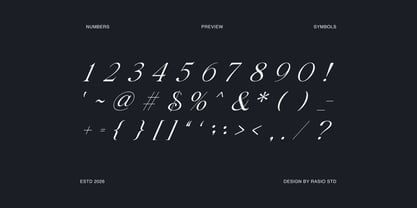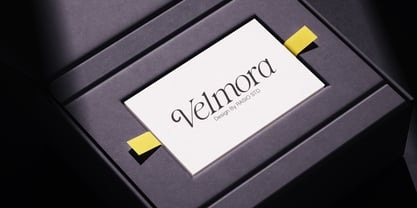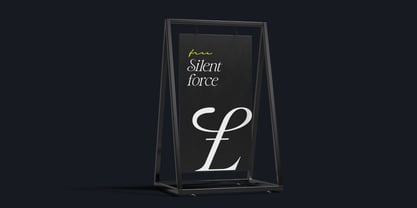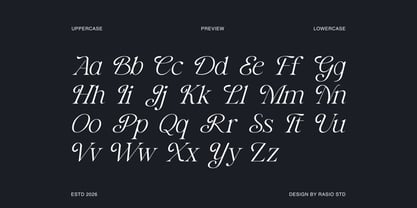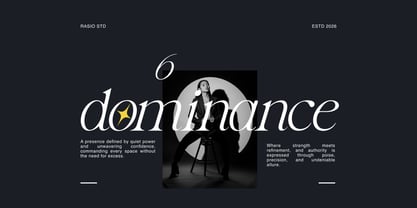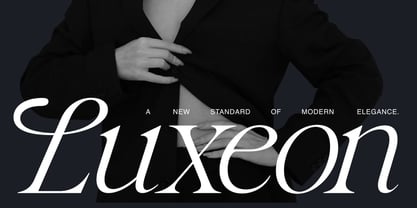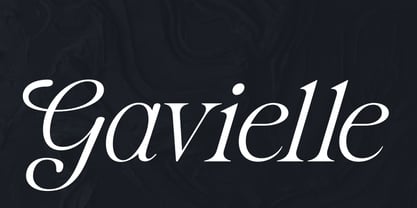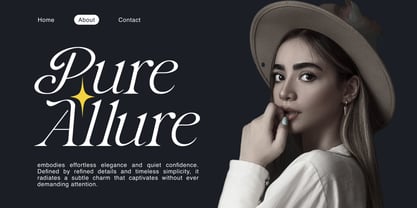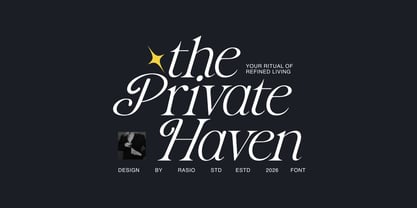
Gavielle
by Rasio Studio
The Gavielle Font Family was designed by Fajar Indra and published by Rasio Studio. Gavielle contains 1 styles. More about this family
Gavielle is a modern elegant italic serif font crafted with graceful curves and refined contrast, creating a sophisticated and luxurious typographic presence. The letterforms feature flowing italic structures, delicate serif terminals, and balanced proportions that enhance readability while maintaining an upscale aesthetic. Gavielle is designed for luxury branding, fashion editorials, high-end packaging, beauty product labels, elegant wedding stationery, magazine layouts, boutique logos, social media branding, sophisticated marketing visuals, and upscale promotional designs that require a refined and graceful typographic style.
Designers: Fajar Indra
Foundry: Rasio Studio